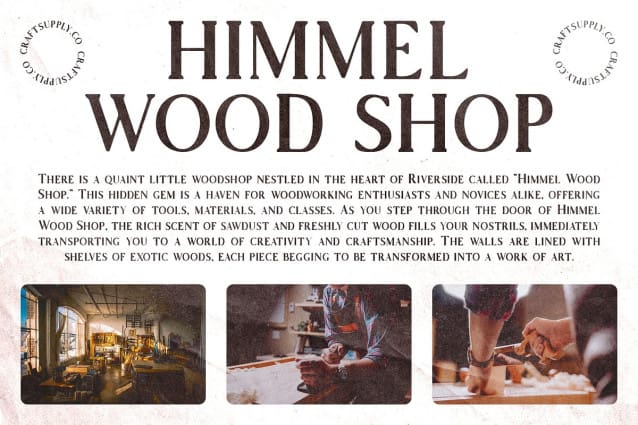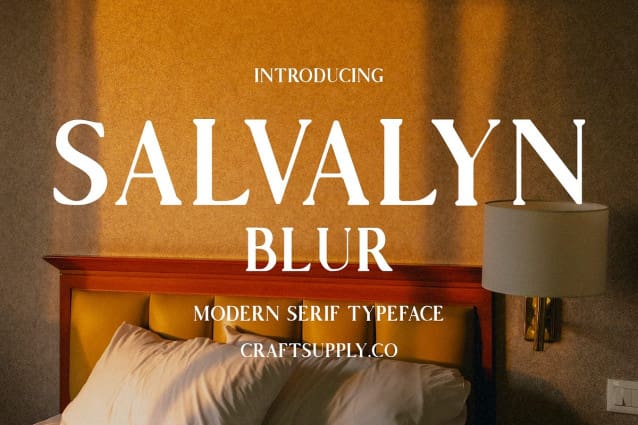
Salvalyn Blur Font
Salvalyn Blur Font is a modern serif font with an elegant form and a blur style, suitable for display purposes. Its sleek design combined with blurred elements creates a unique and contemporary look, ideal for posters, branding, and other projects that require a touch of modern elegance.
With its refined lines and blurred details, Salvalyn Blur offers a fresh take on serif fonts. The elegant form and blur style create a captivating and dynamic look, perfect for designs that demand attention and convey a sense of sophistication and innovation.
Whether you’re designing a sleek corporate brochure or creating an upscale event invitation, Salvalyn Blur is sure to make an impression. Its blur style and elegant form make it perfect for displays that need a touch of modern sophistication.
Despite its distinctive appearance, Salvalyn Blur is versatile and easy to use. The font works well in both large and small sizes, making it suitable for a variety of applications, from headlines and banners to body text and more. With its blend of elegant form and blur style, Salvalyn Blur adds a refined and contemporary touch to any design.